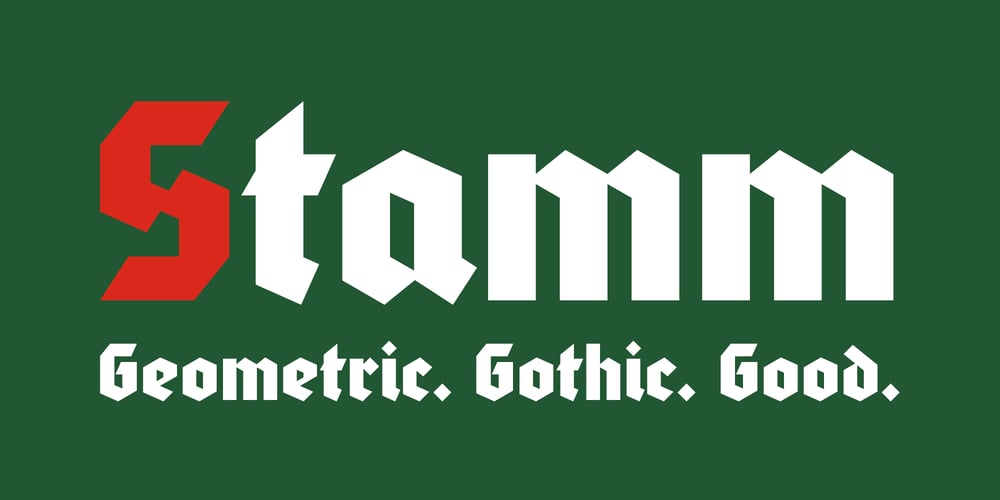
Stamm Font Family was designed by Stanislaus Tychsen and published by Tychographica. Stamm contains 1 styles and family package options. Based on Element by Max Bittrof, Stamm takes the next step in adaptation to modern environment. Using it’s own construction logic it makes the design far more consistent and considerably expands the character set, supporting hundreds of languages, including Vietnamese and extended Cyrillic. Generous amount of OpenType features allows various localization options, automatic fractions, super- and subscripts, oldstyle and tabular figures, small caps and ligatures to suit almost every need. There are 15 Stylistic Sets available to customize the font (some of them duplicate locl-features in case they’re not supported by applications): ss01 (Traditional glyphs): changes modern shapes used by default to old-style forms; ss02 (Alternate historical glyphs): changes the shape of several characters to a more obscure historical form; ss03 (Catalan middle dot): replaces middle dot between two l’s by Catalan variant for better spacing; ss04 (German ligatures): activates historical ch, ck and tz ligatures used in German blackletter typesetting; ss05 (Dutch IJ-acute): replaces j after i-acute with j-acute; ss06 (Marshallese cedilla): replaces commas under certain letters with cedillas; ss07 (Romanian/Moldovan comma): changes cedilla-glyphs to comma-glyphs; ss08 (Turkish i): replaces regular i with dotted Turkish variant; ss09 (Cyrillic alternates): changes several Cyrillic glyphs to alternate variants; ss10 (Bulgarian Cyrillic): activates Bulgarian shapes; ss11 (Serbo-Macedonian Cyrillic): activates Serbo-Macedonian shapes; ss12 (Double-story a): replaces default glyph with it’s double-story variant; ss13 (Alternate asterisk): replaces default asterisk with 5-pointed shape; ss14 (Enclosed figures): replaces standard figures with enclosed variants; ss15 (Slashed zero): replaces default zero with slashed variant.